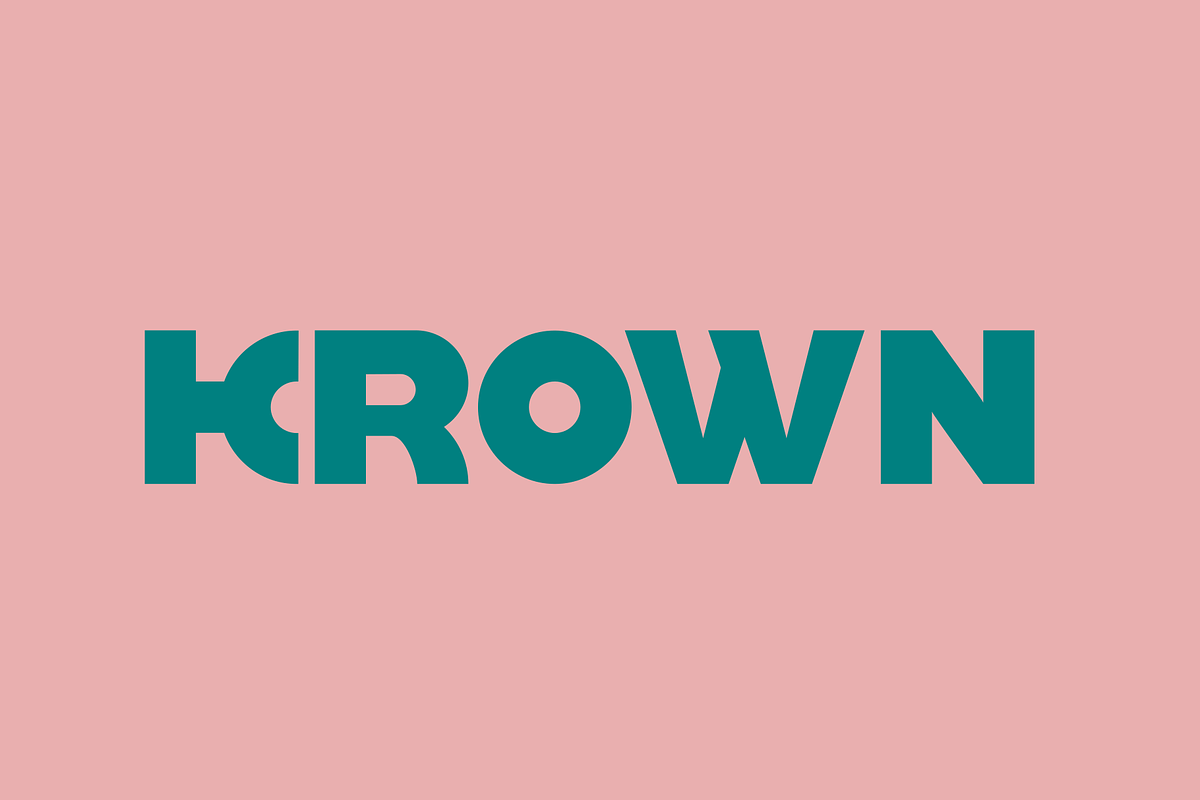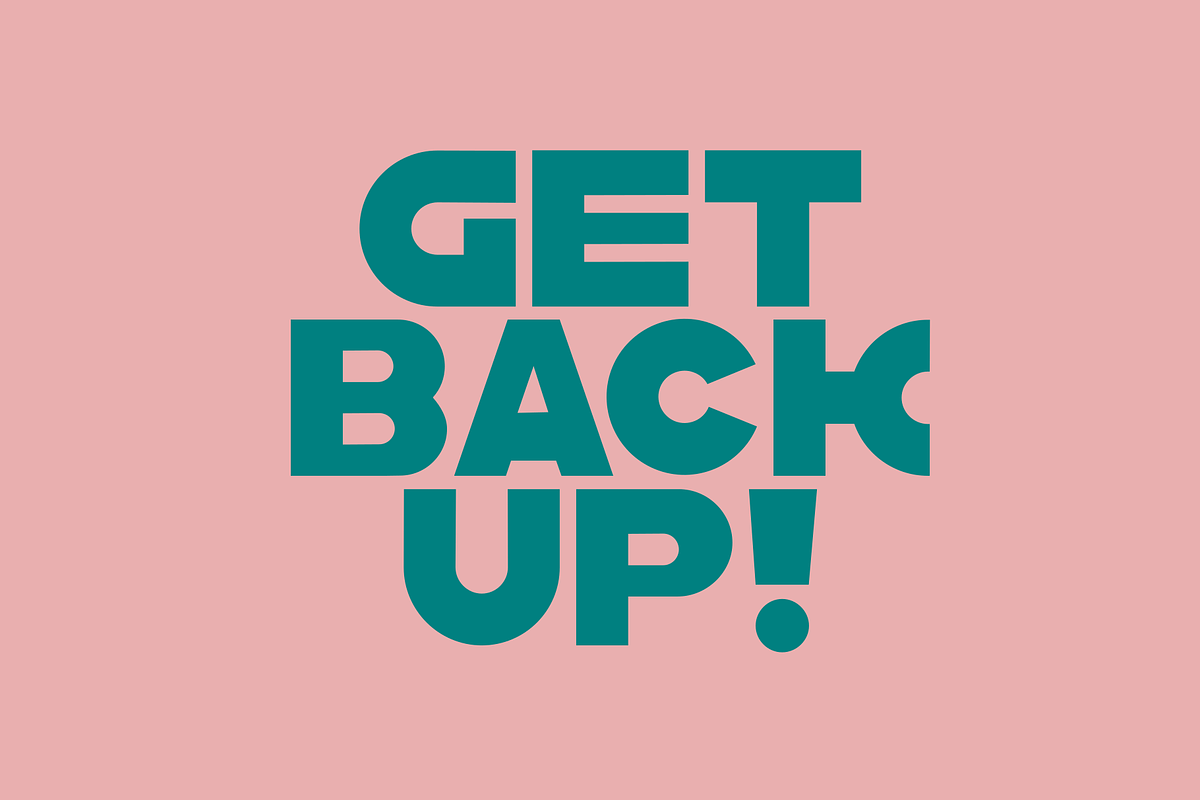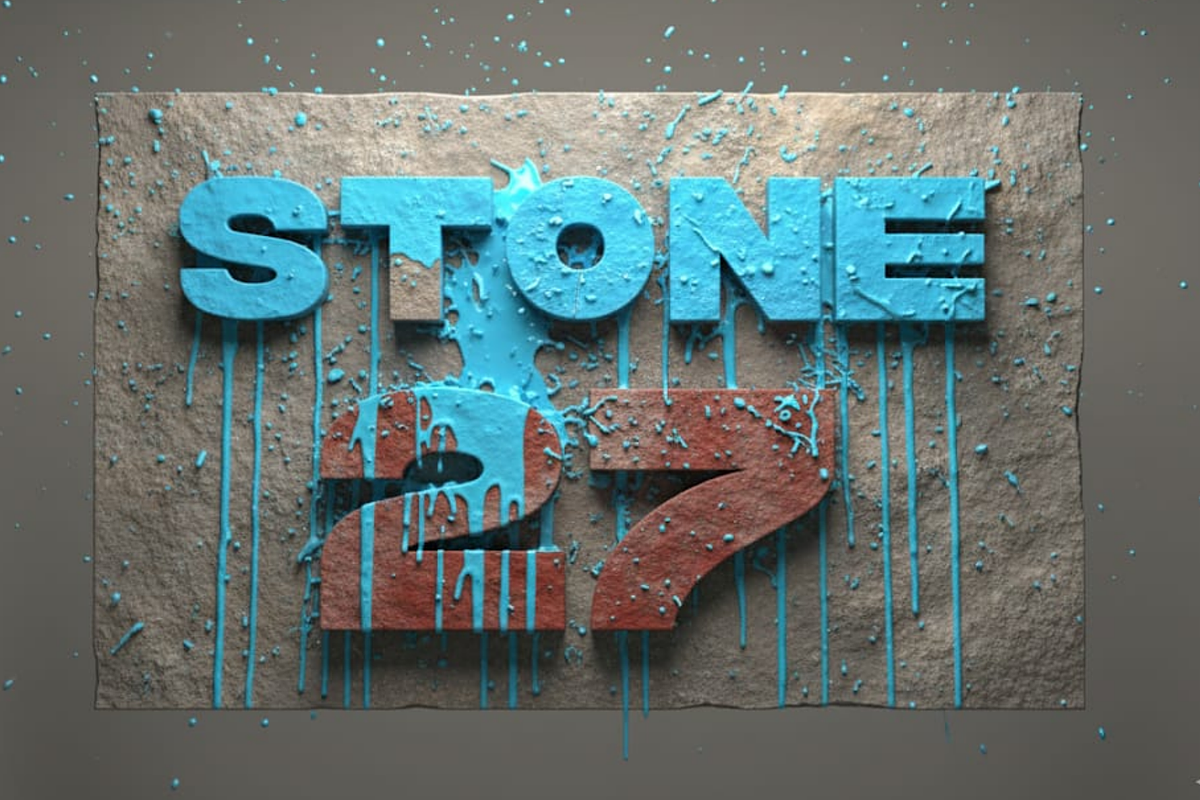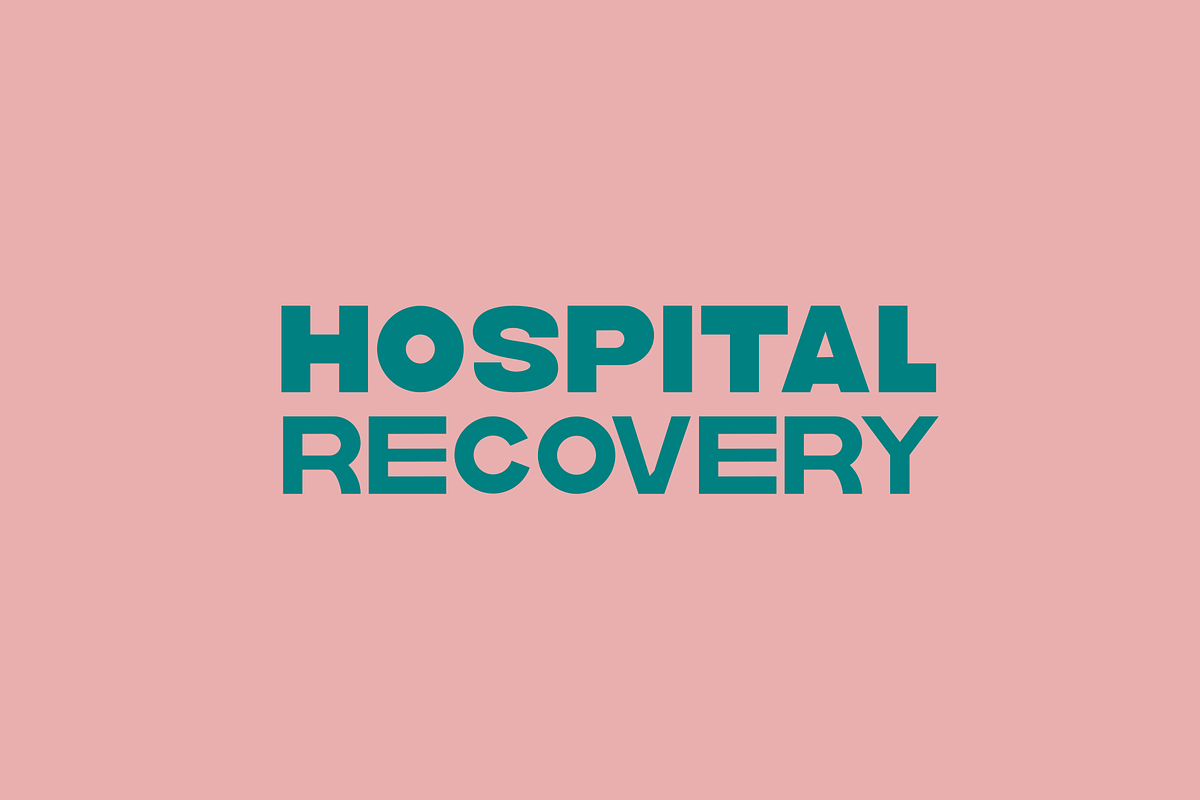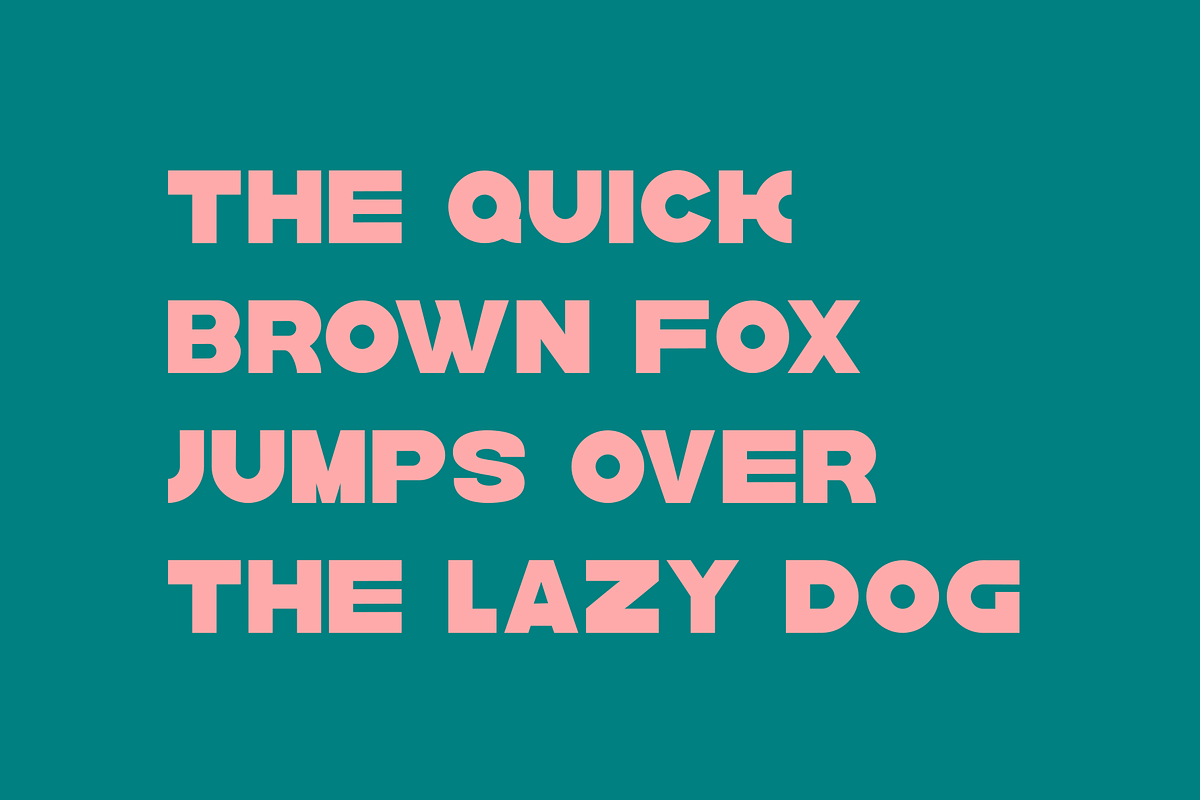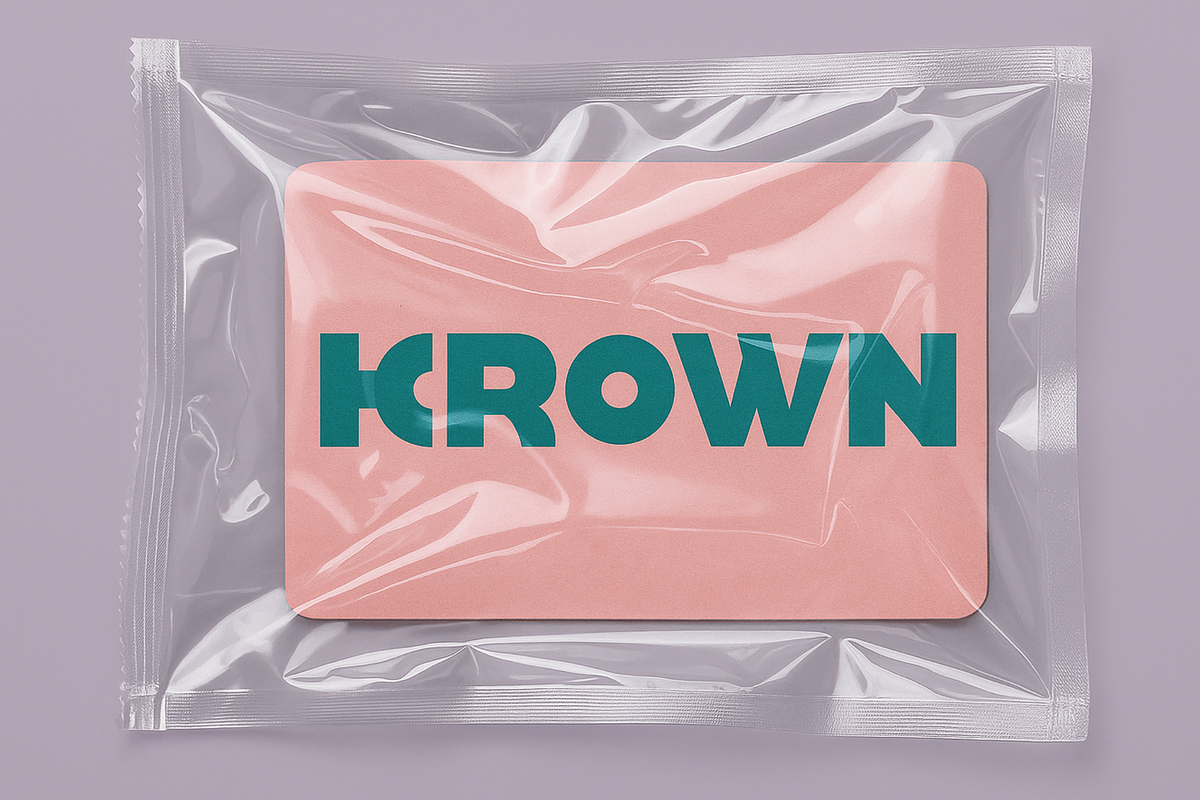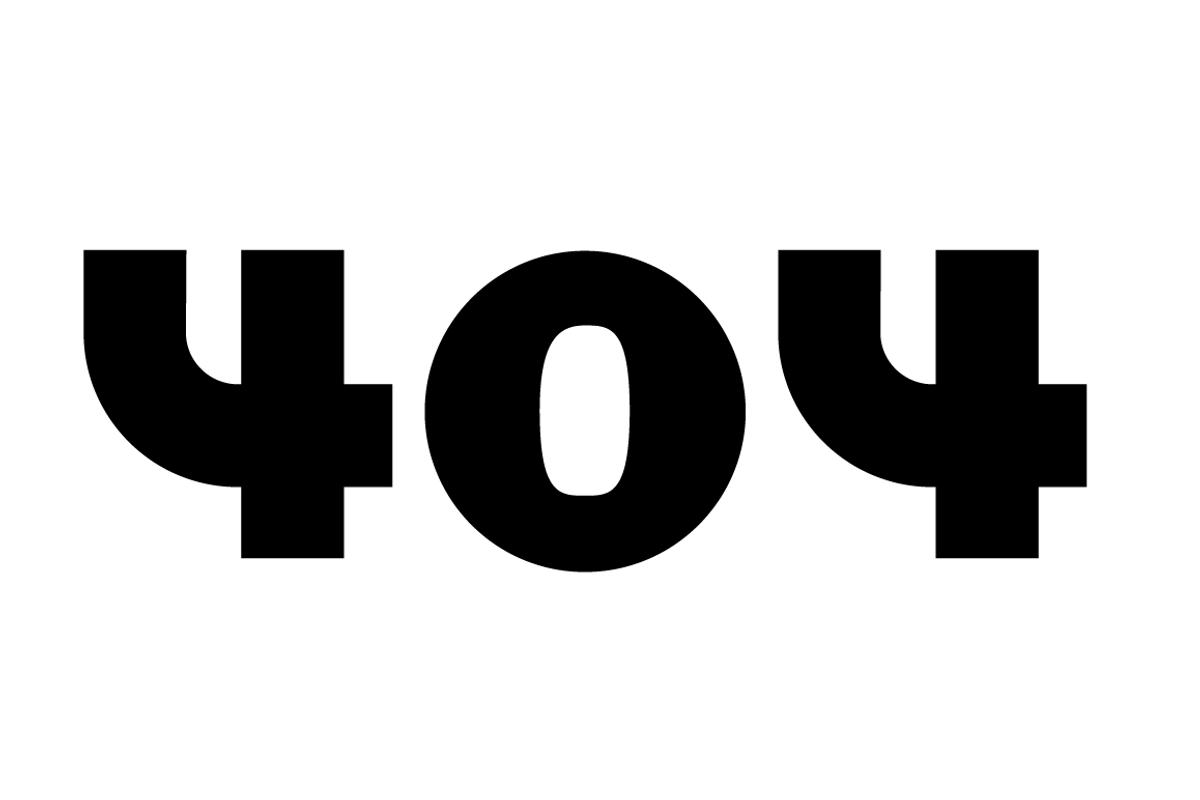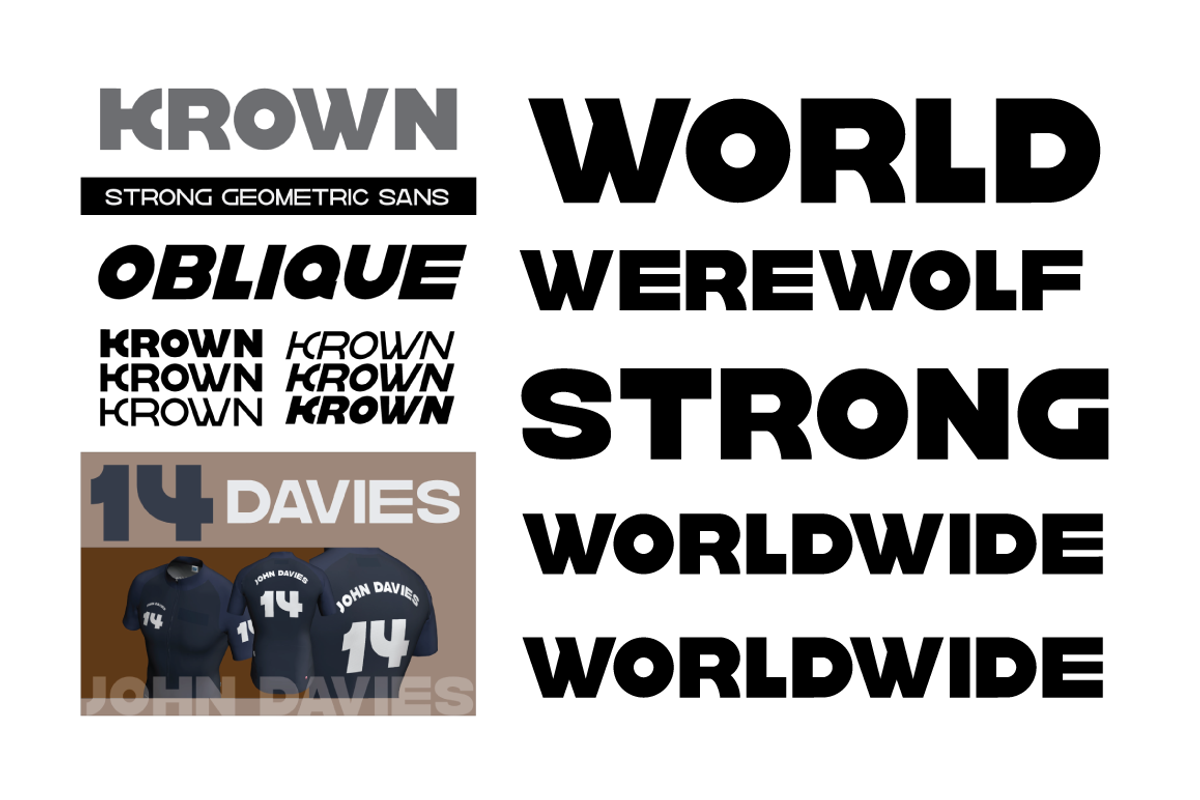
KROWN – Strong Geometric Sans
Bold. Modern. Iconic.
KROWN is a geometric sans-serif typeface built with power and precision. Inspired by industrial design and modern sports typography, it delivers a bold, confident, and professional look. Perfect for branding, jerseys, posters, logos, and headlines that demand a strong visual impact.
✨ Key Features:
- 6 Font styles
- Balanced geometric proportions with strong letterforms
- Full uppercase set, numerals, symbols, and multilingual support
- Ideal for sportswear, esports, street fashion, and modern brand identity